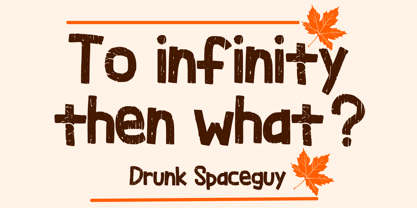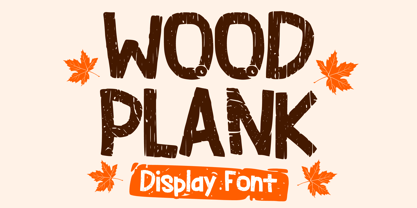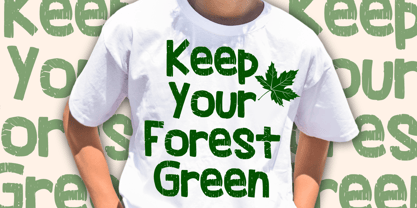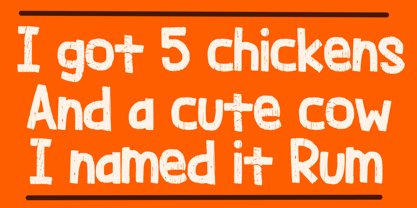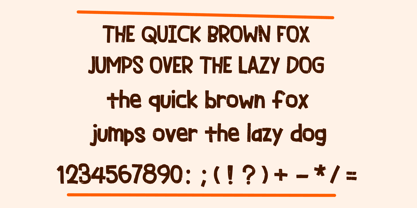
Wood Plank
The Wood Plank Font Family was designed by Gabriel Valentinus and published by Mvmet. Wood Plank contains 1 styles. More about this family
Immerse yourself in the earthy, rustic charm of Wood Plank, a vibrant display font enhanced by a unique wooden texture. This quirky typeface adds a bold, whimsical edge to any project. It is perfect for t-shirts, children's books, festive greetings, and adding a fun element to stickers, posters, and banners. Explore Wood Plank to infuse your designs with joy and cheer, effortlessly transforming them into captivating visual treats!